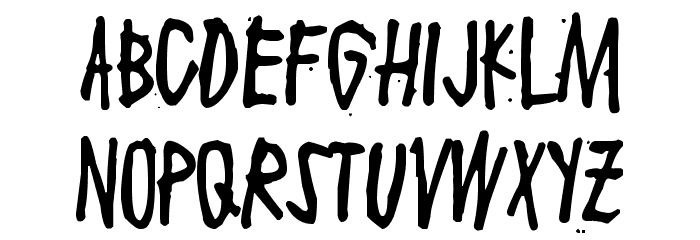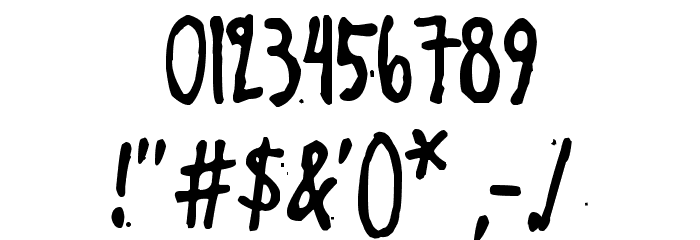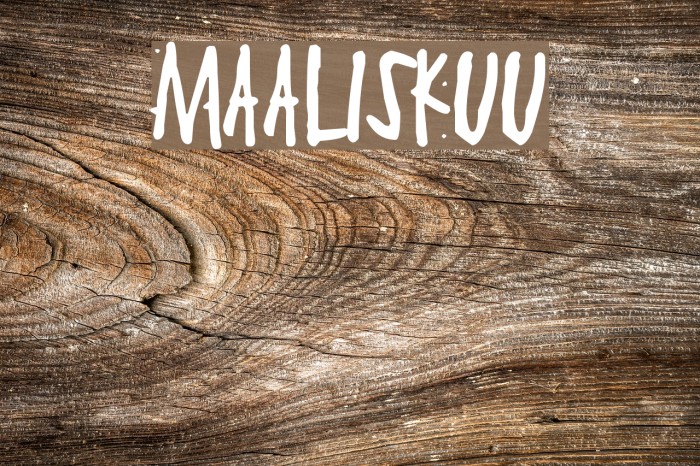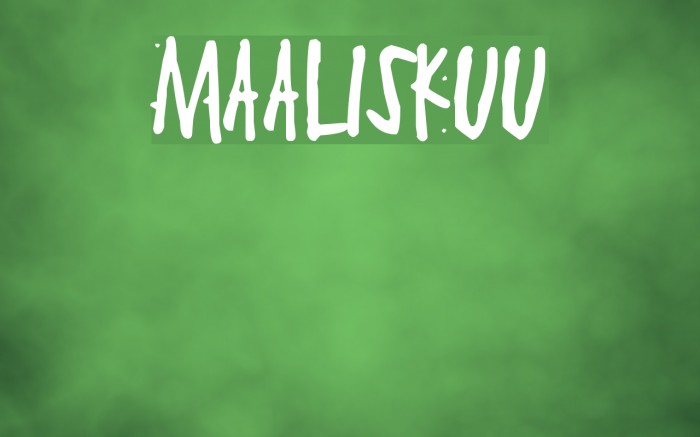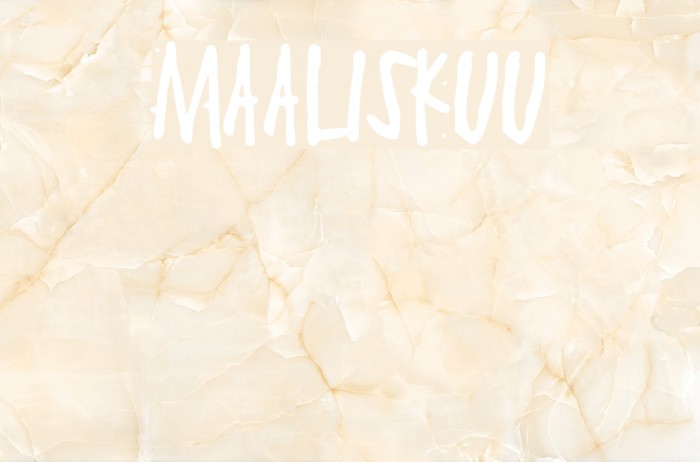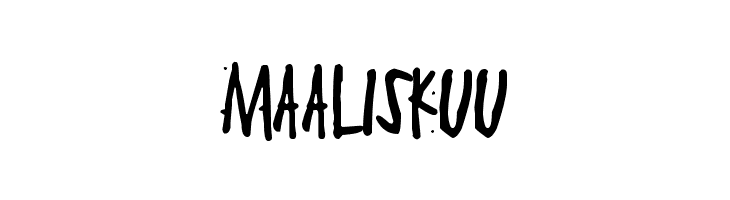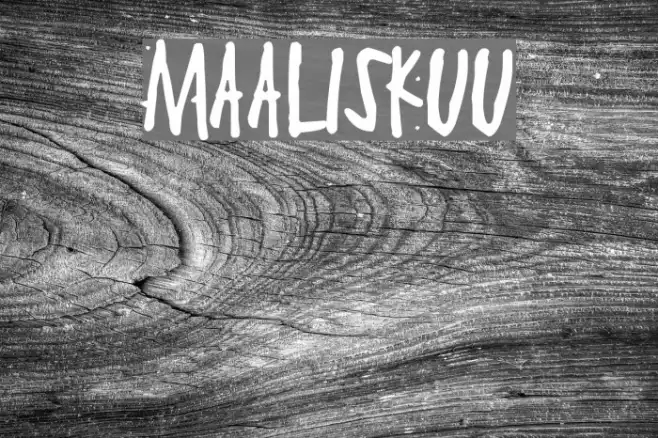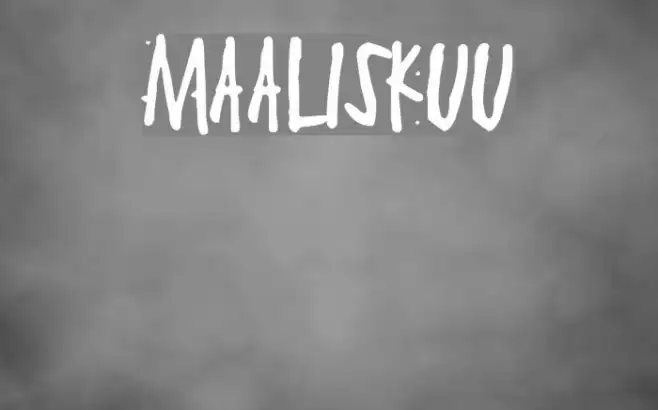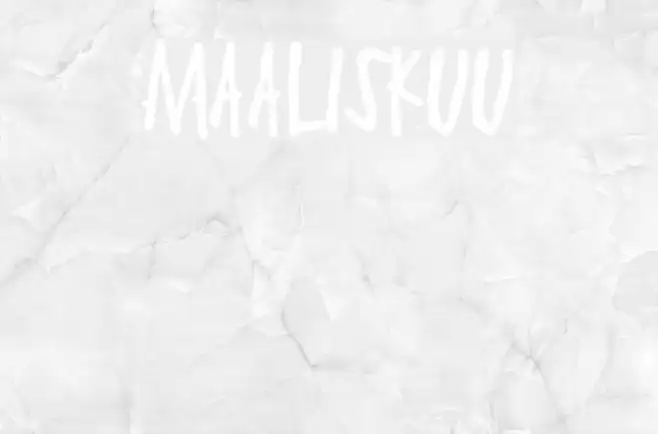
Maaliskuu Font
This font features a bold and expressive handwritten style, characterized by its uneven strokes and playful, casual appearance. The letters are slightly slanted, giving a dynamic and energetic feel. The uppercase and lowercase letters maintain a consistent style, with a rough, textured look that adds to its charm. The numbers and special characters follow the same aesthetic, ensuring a cohesive look across all text. This font is perfect for projects that require a personal touch or a creative flair.
A bold, expressive handwritten font with a playful and casual style.
- Proposed Projects: Ideal for greeting cards, posters, creative branding, and social media graphics.